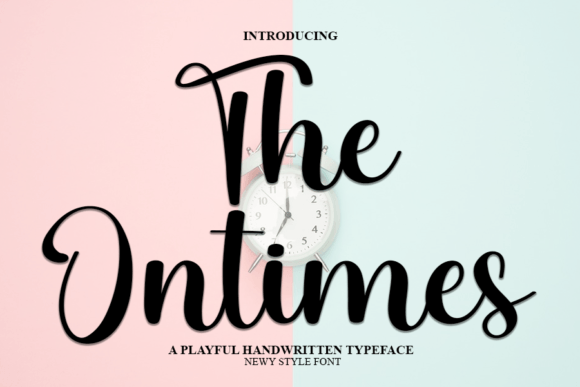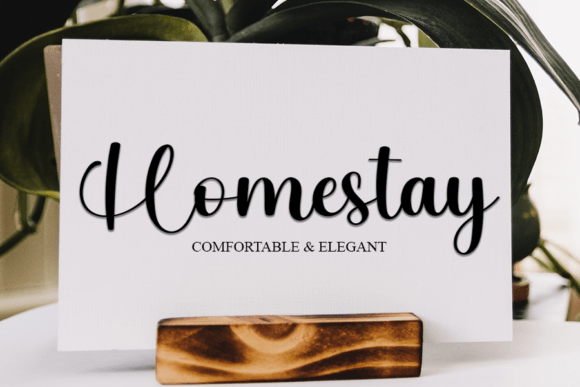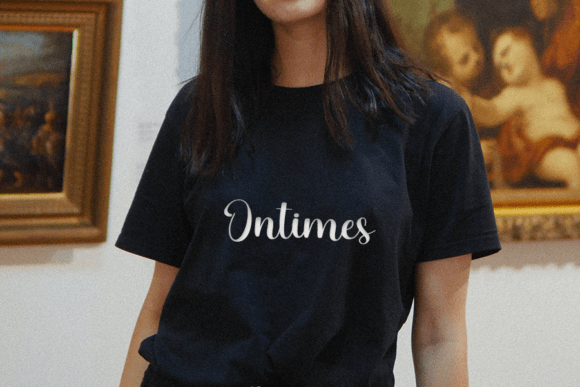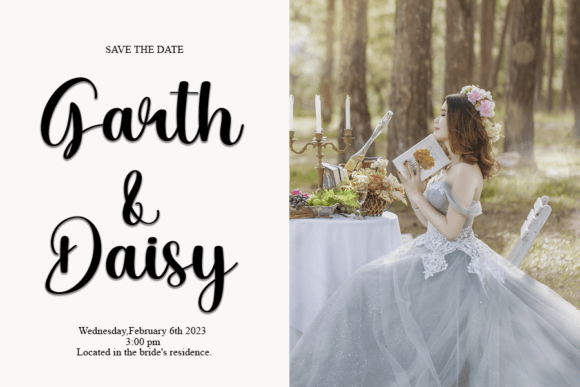
A Delicate Handwritten Font for Creative Projects
The Ontimes Font is a delicate handwritten font that has been meticulously designed to bring a cool and unique touch to your designs. With its stylish and modern appearance, this font is perfect for various applications such as writing letters, creating invitations, showcasing food products, designing eye-catching titles, and more. The Ontimes adds a sense of elegance and sophistication to your projects, making them visually appealing and captivating.
Perfect for Invitations and Personal Projects
The Ontimes Font is ideal for invitations and other personal projects. Whether you’re creating wedding invitations, birthday cards, or thank you notes, this font adds a unique and personalized touch to your designs. Its elegant and modern handwritten style ensures your materials stand out with refined beauty and style.
Great for Business and Food Product Designs
For business designs and food product labels, the Ontimes Font provides a distinctive and memorable look. Whether you’re designing business cards, logos, or marketing materials, this font’s modern yet elegant appearance ensures your brand stands out with a professional and unique touch. It’s also perfect for showcasing food products or creating creative titles for your projects.
Ideal for Quotes and Promotional Materials
For quotes and promotional materials, The Ontimes Font provides a charming and captivating appearance. Whether you’re creating motivational quotes, advertisements, or social media content, this font enhances your message with elegance and appeal. Its flowing letterforms ensure your text stands out with style and impact.
Versatile for Formal and Informal Designs
The Ontimes Font is highly versatile, making it suitable for both formal and informal designs. Whether you’re working on sophisticated branding or fun greeting cards, this font adapts seamlessly to your project’s theme, offering both elegance and casual charm. Its attention to detail makes it perfect for a wide range of creative applications.
Elegant, Legible, and Versatile
Despite its delicate handwritten design, The Ontimes Font remains legible and versatile. Its well-balanced strokes ensure that your text is easy to read, even in smaller sizes or for longer passages of text. Whether you’re working on headlines, captions, or body text, this font strikes the perfect balance between style and clarity, making it suitable for various creative projects.
Add Elegance and Sophistication to Your Designs with The Ontimes Font
If you’re looking for a delicate handwritten font with a modern, elegant script style, The Ontimes Font is the perfect choice. Whether you’re creating invitations, business cards, quotes, or promotional materials, this font brings sophistication, charm, and uniqueness to your work. Let The Ontimes Font transform your creative projects and leave a lasting impression with its distinctive and captivating design.